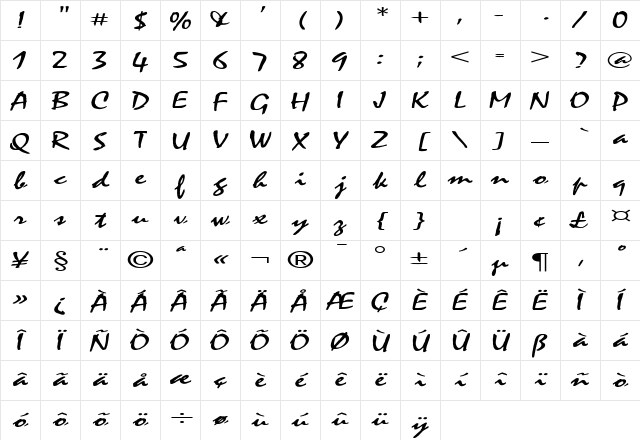
Mystic Extended Normal
Mystic Extended Family
Design Context for Mystic Extended
Mystic Extended is a composed and adaptable typeface that performs quietly and consistently across a wide range of design contexts.